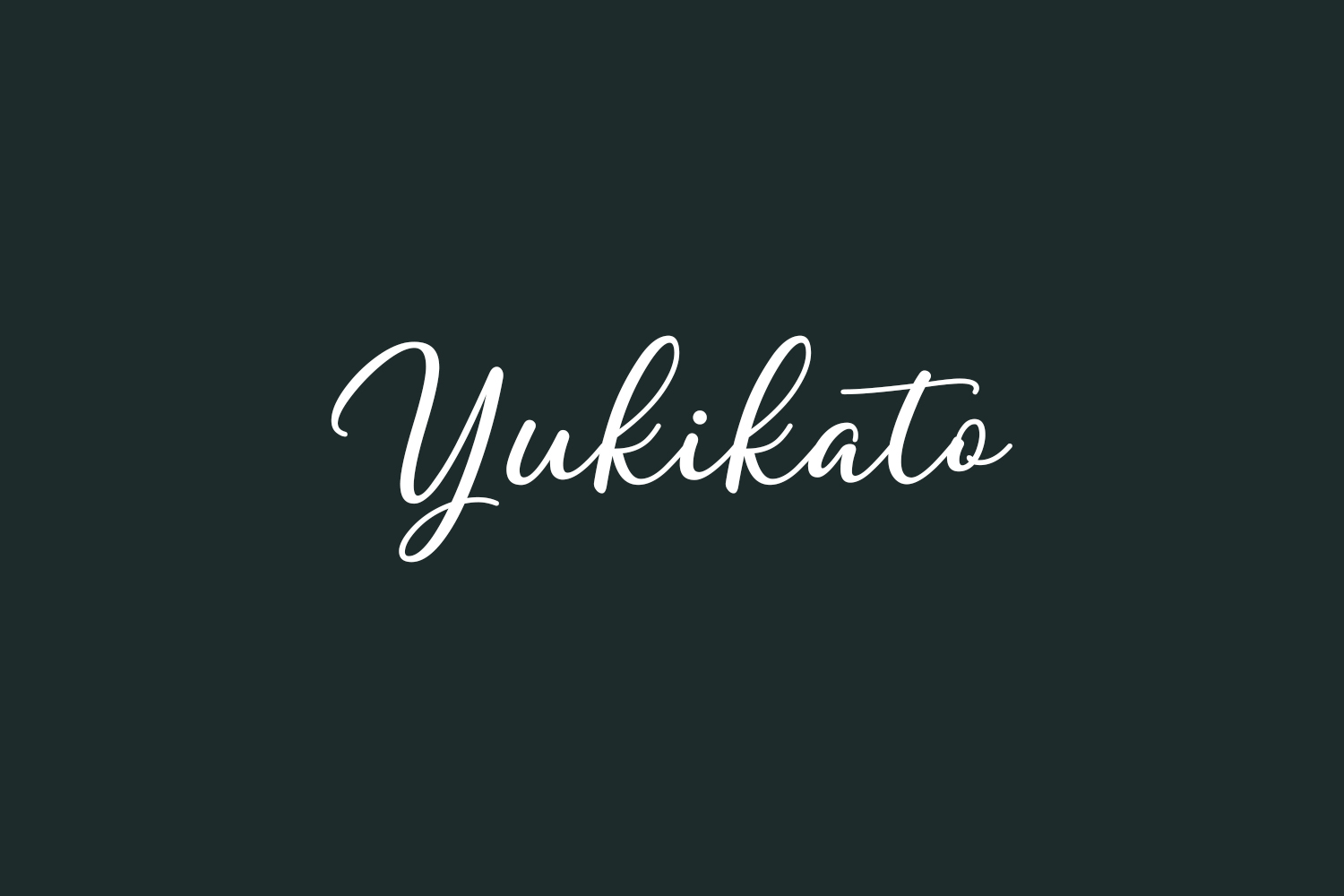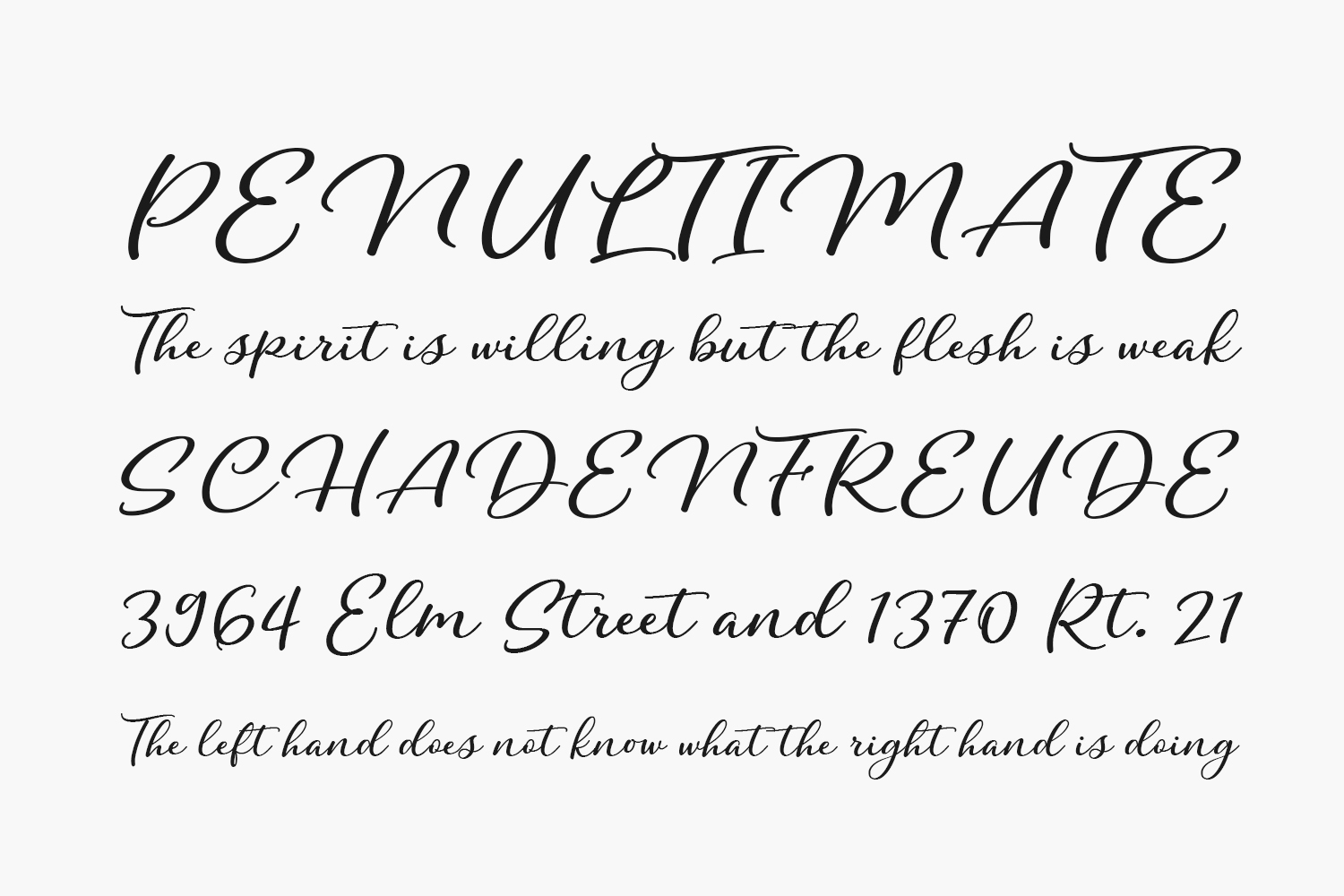
Yukikato Free Font is a beautiful and sweet looking script font. Yukikato will give your design a feminine look and feel and contains lots of beautiful swashes which makes it perfect for modern designs by adding a delicate quality. Yukikato Free Font was designed by 7NTypes and is free for personal use only. Please purchase the full version for commercial use.